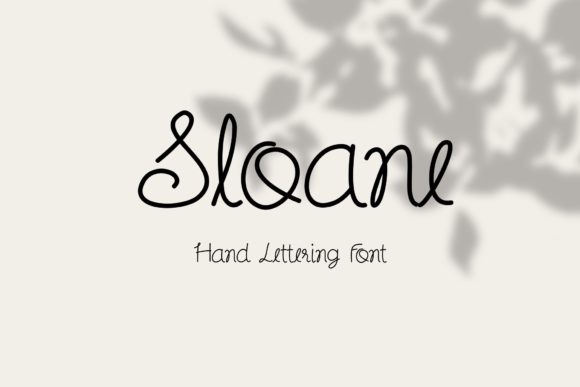
Introducing Sloane Font, the captivating script font that will unleash your creativity and elevate your designs to new heights. Each stroke of this exquisite typeface exudes elegance and sophistication, making it the perfect choice for those seeking to add a touch of allure to their projects.
Imagine crafting stunning invitations that evoke a sense of timeless romance, or creating eye-catching social media posts that captivate your audience. With Sloane Font as your artistic companion, your words will dance across screens and pages, leaving an unforgettable impression.
Embrace the allure of Sloane Font and watch your creative vision flourish. Let its graceful curves and enchanting flow guide you as you weave tales of love, adventure, and inspiration. Whether you're a seasoned designer or simply seeking to add a touch of magic to your personal projects, Sloane Font will empower you to create captivating designs that resonate with your audience.
So, why settle for ordinary fonts when you can elevate your creations with the exceptional beauty of Sloane Font? Immerse yourself in its enchanting world and let your imagination soar.